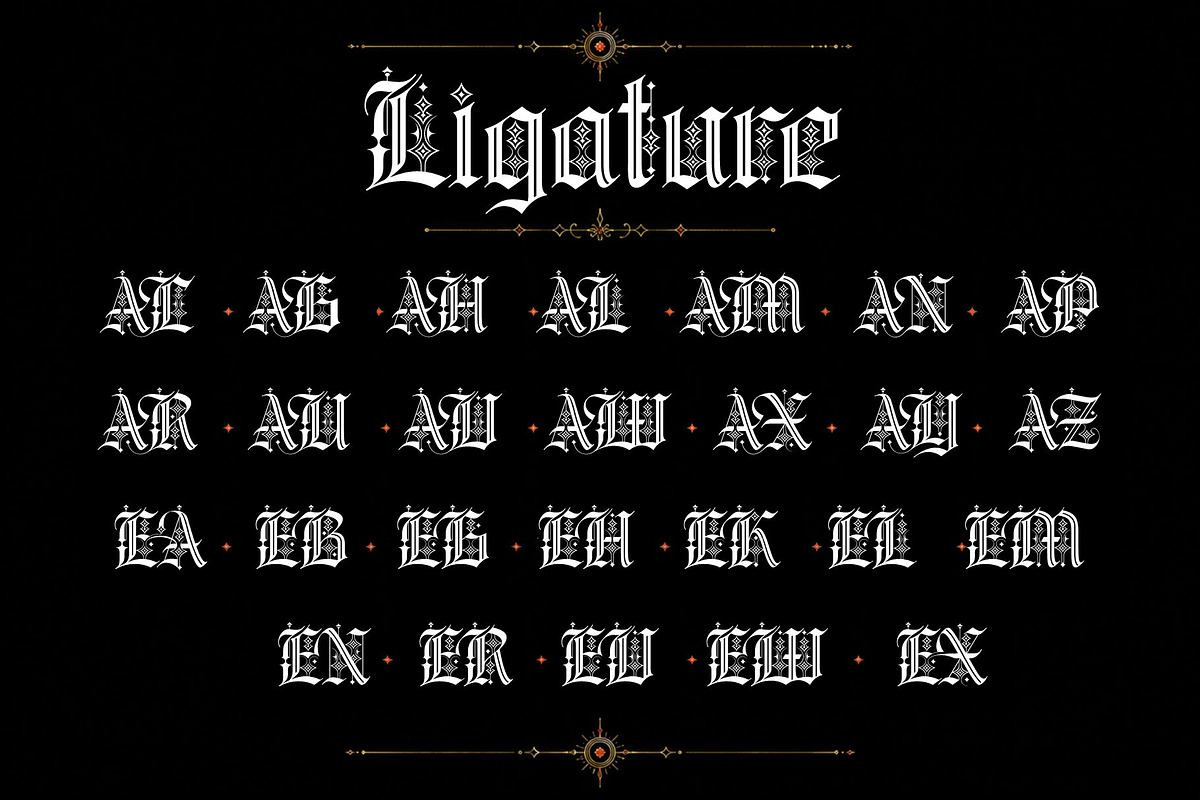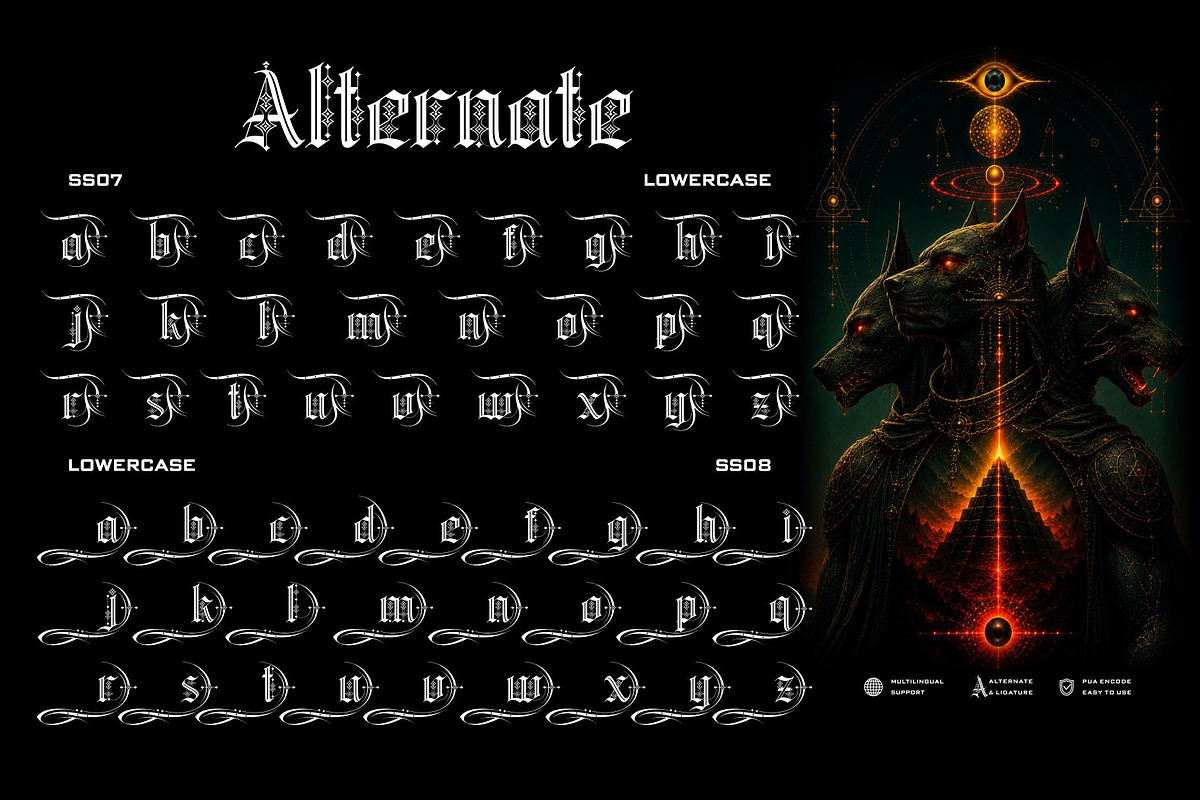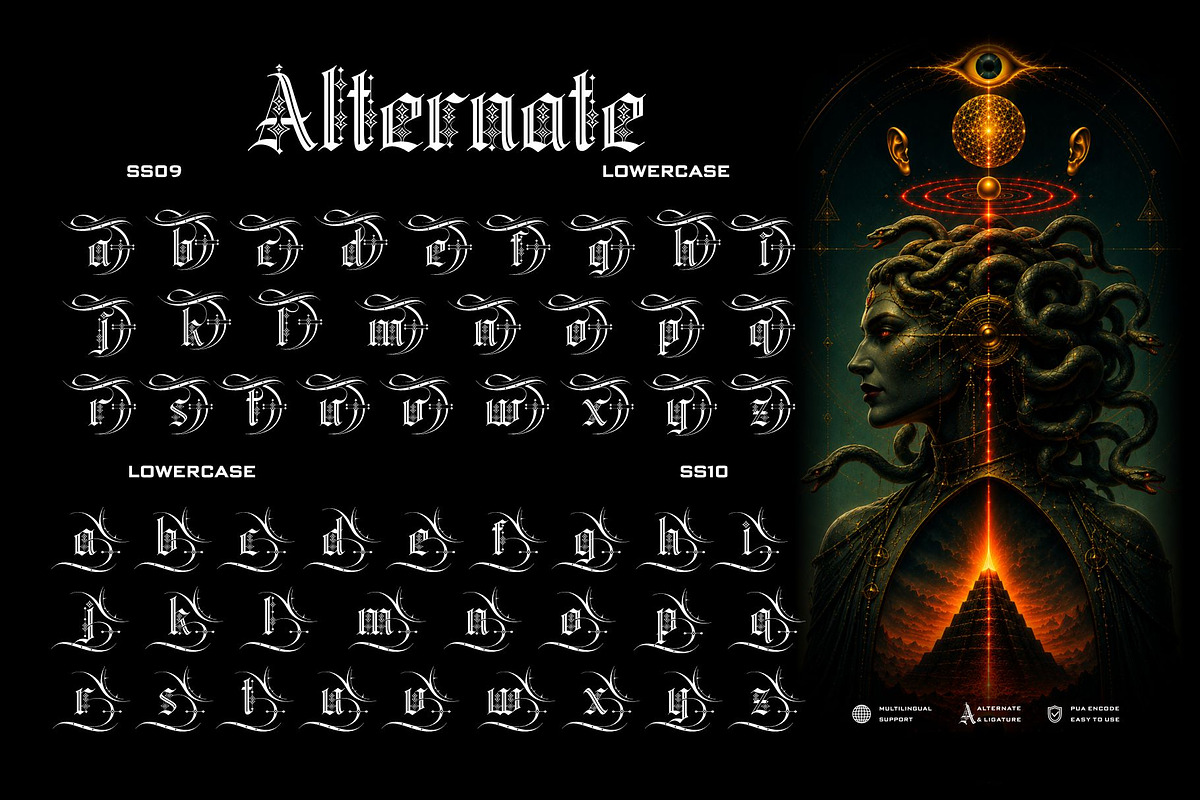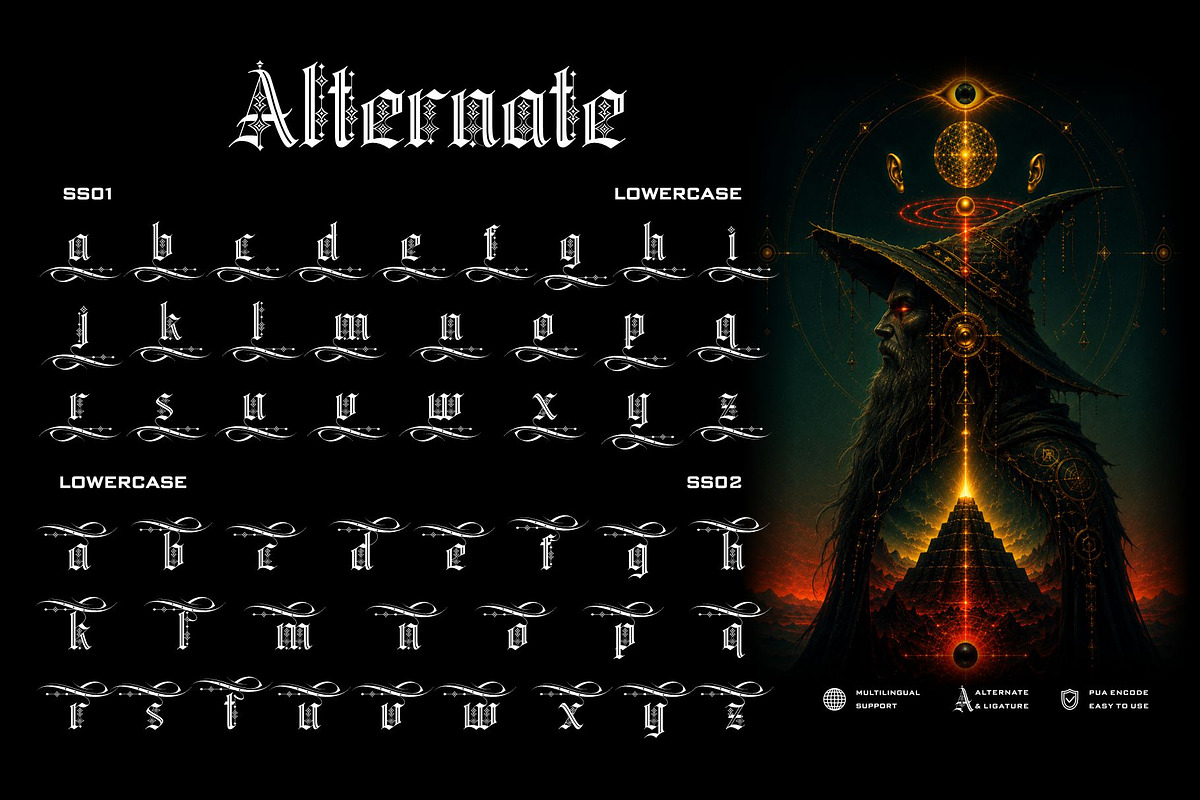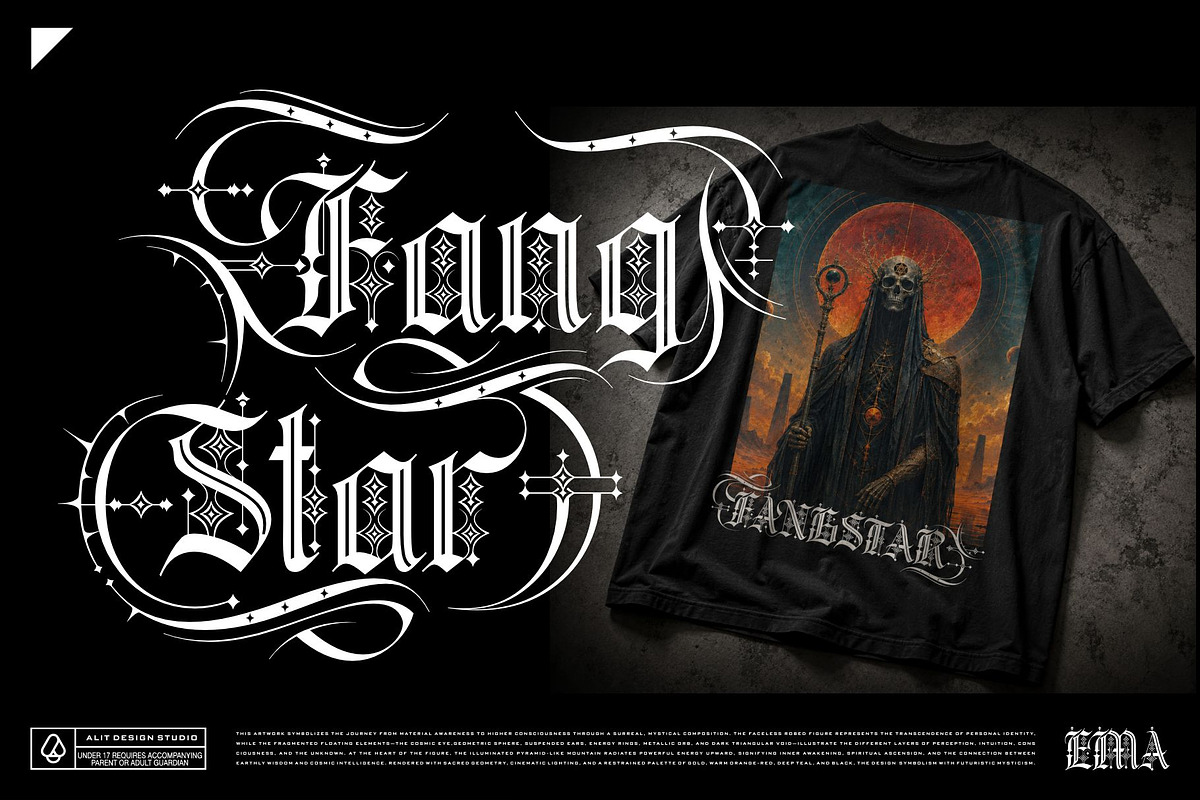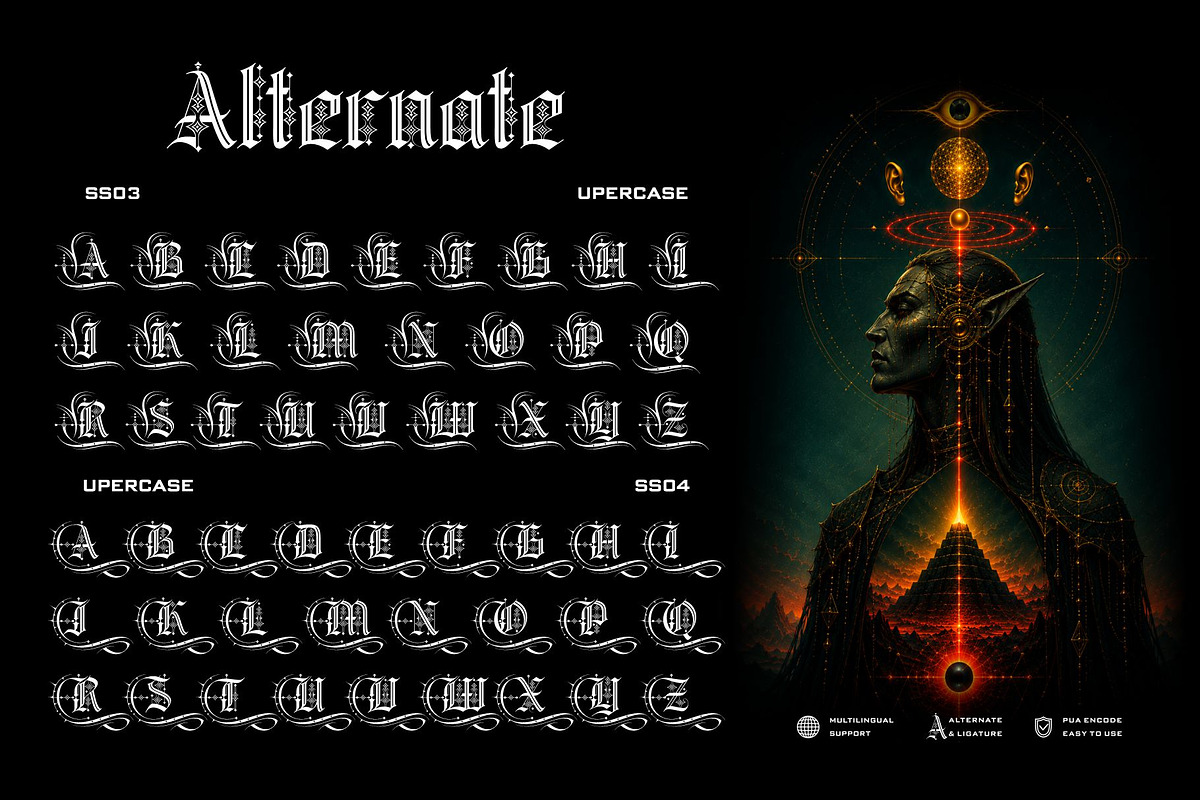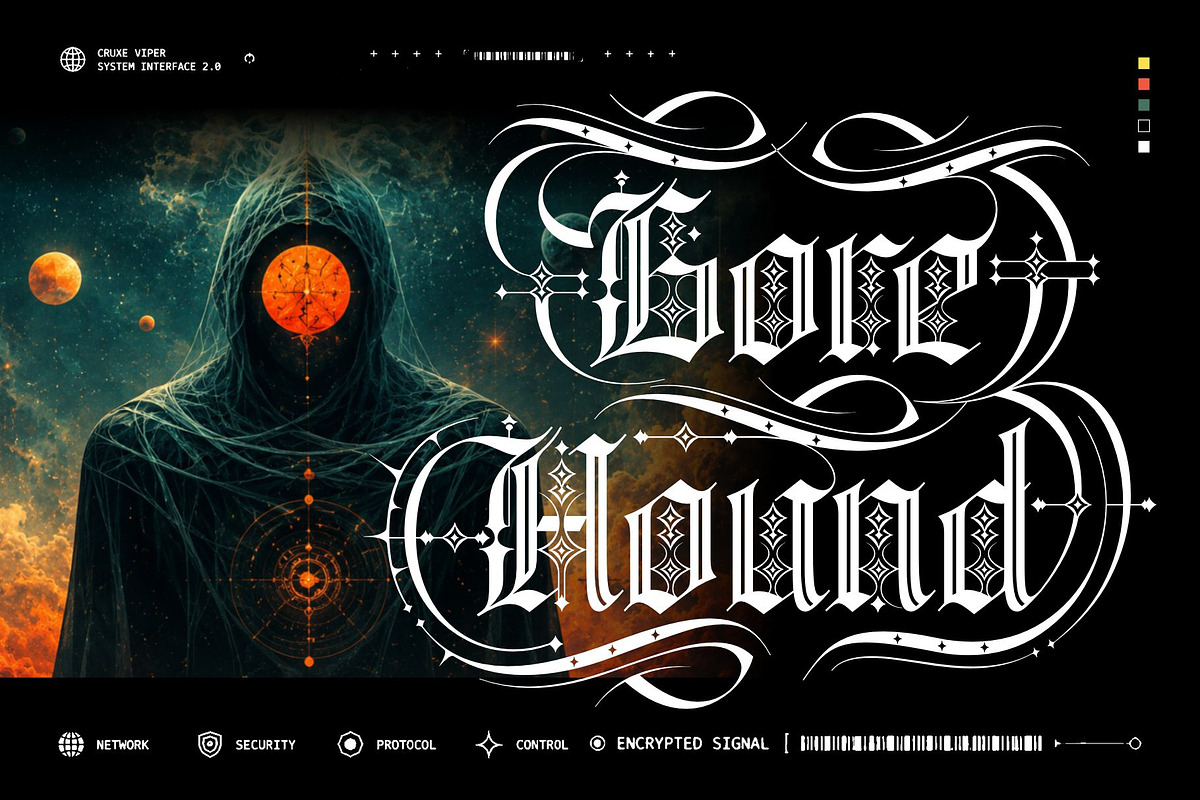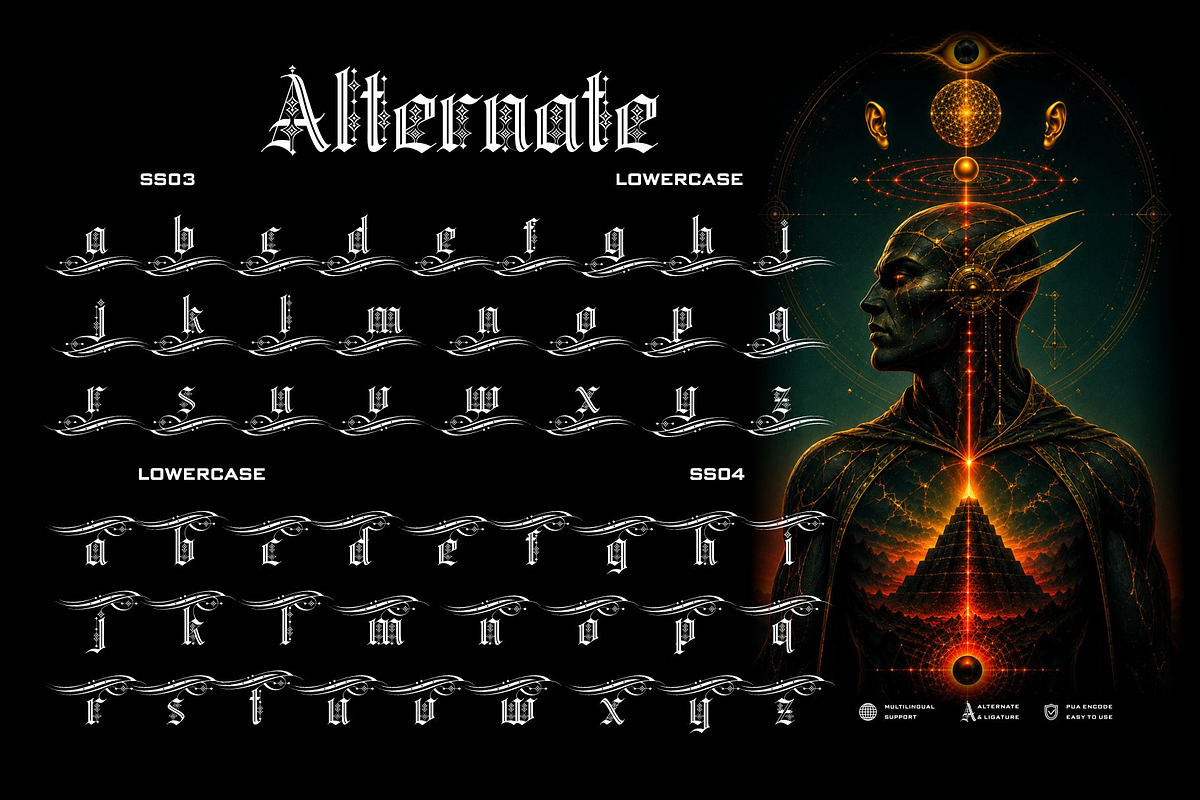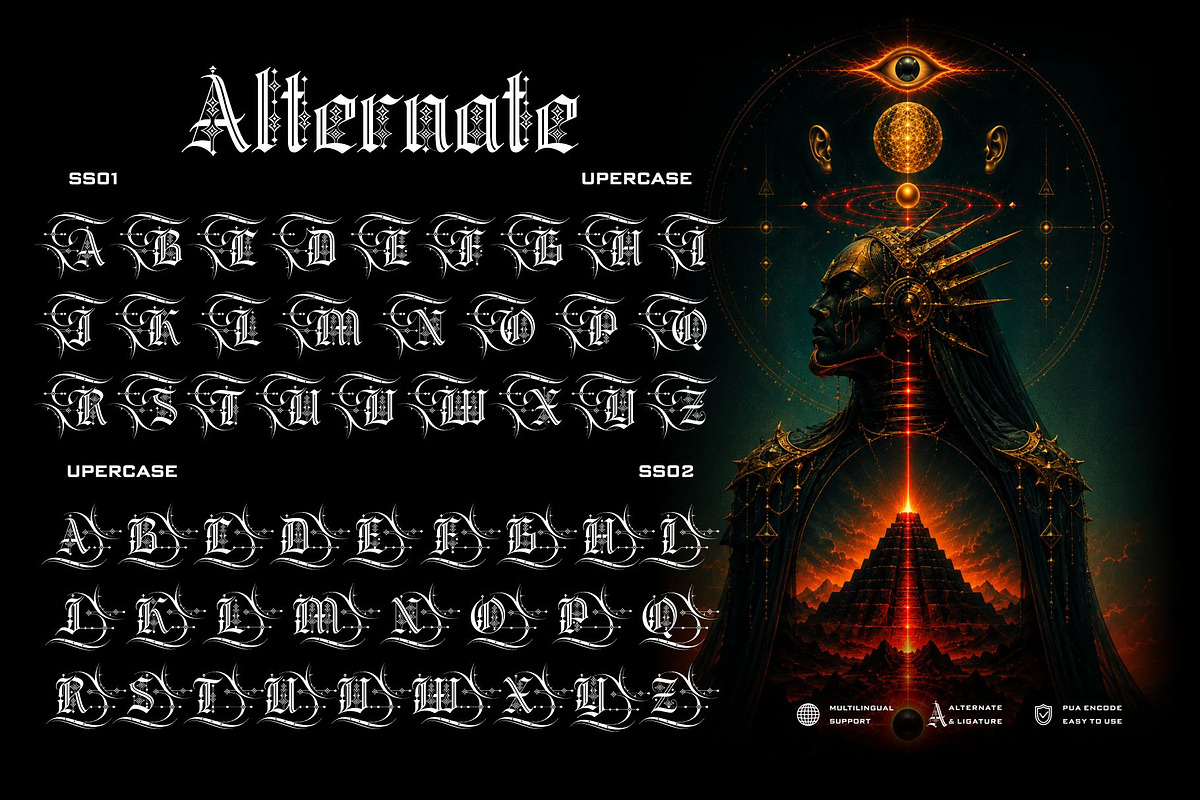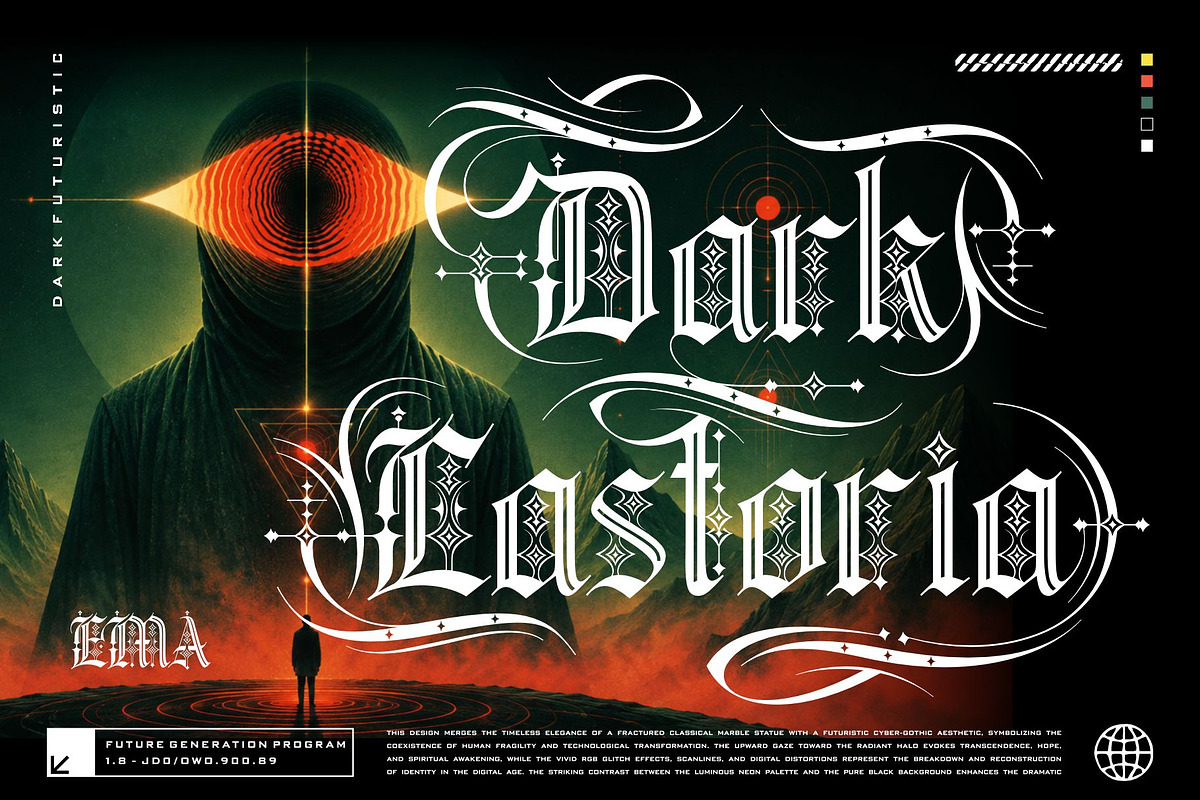
Magic Round Typeface
Magic Round – A Mystical Gothic Typeface
Unveil the arcane beauty of Magic Round, a premium decorative typeface that masterfully blends classic blackletter elegance with modern, mystical flourishes. Designed for projects that demand a bold, dark, and enchanting aesthetic, Magic Round is your ultimate tool for creating standout typography.
Whether you are designing striking streetwear apparel, dark futuristic posters, esoteric brand identities, or captivating album art, this font delivers an unforgettable visual impact. The intricate details, sharp serifs, and sweeping letterforms give you endless creative freedom to craft bespoke typographic art that feels both ancient and cutting-edge.
Boasting a massive collection of 936 glyphs, Magic Round offers unparalleled versatility for designers. It comes fully equipped with comprehensive multilingual support, custom ligatures, and an extensive range of Stylistic Sets—from SS01 all the way to SS11—allowing you to perfectly customize every word and create truly unique compositions.
936 Total Glyphs for ultimate design flexibility
Standard Uppercase & Lowercase Characters
Numerals, Punctuation, and Symbols
Extensive Stylistic Alternates (SS01 - SS11)
Unique Custom Ligatures
Comprehensive Multilingual Support
Streetwear design, band merchandise, esoteric and mystical branding, dark futuristic themes, fantasy book covers, tattoo shop branding, gaming logos, and premium packaging.